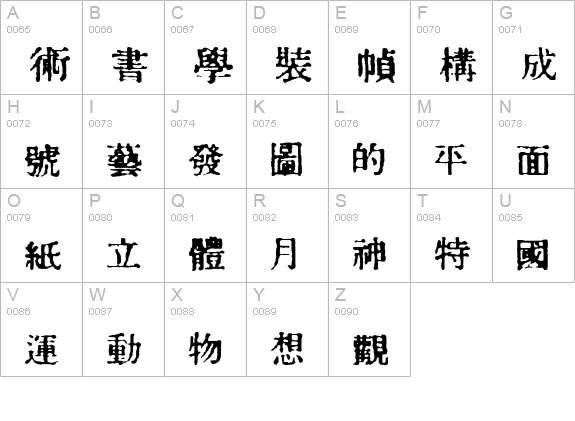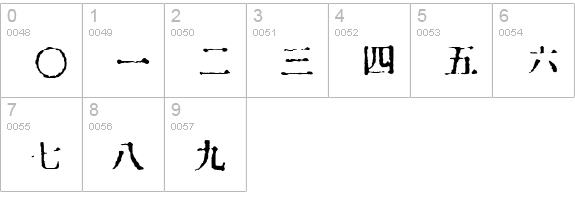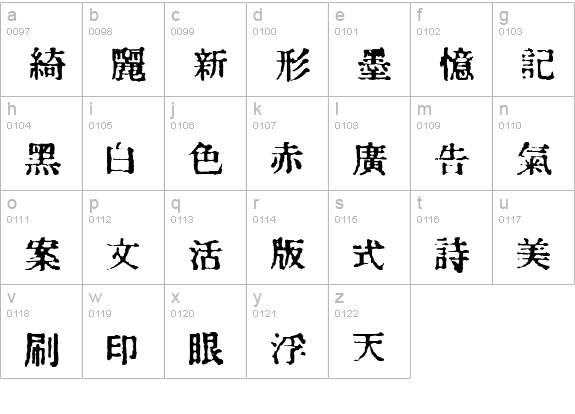
In_kanji Font Details
In_kanji font is a beautifully designed typeface that captures the essence of traditional Japanese calligraphy. With its elegant strokes and intricate details, this font brings the timeless beauty of kanji characters to life. Each character is meticulously crafted, ensuring a harmonious balance between form and function. Not only does In_kanji font exude a sense of grace and sophistication, but it also offers the convenience of being freely available to download at FontsMarket.com. This means that anyone can now access this stunning font for their personal and professional projects without any cost. Whether you're creating stunning designs for print or digital media, In_kanji font will add a touch of authenticity and cultural richness to your work. Its versatility allows it to be used in a wide range of applications, including branding, advertising, packaging, and more. Discover the power and beauty of In_kanji font today and unleash your creativity like never before. With its freely accessible nature, there are no limitations to what you can achieve with this exceptional typeface. Download In_kanji font from FontsMarket.com and embark on a journey of visually captivating designs that leave a lasting impression.